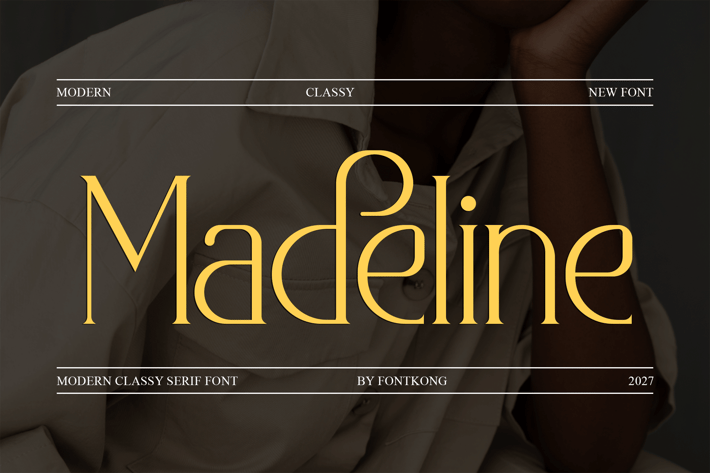
Madeline – A Modern Classy Serif Font
Introducing Madeline, a modern classy serif font crafted to bring elegance and style to any project. With its smooth curves, chic serifs, and balanced letterforms, Madeline is perfect for luxurious branding, editorial spreads, wedding invitations, and more. This typeface seamlessly combines classic charm with a modern edge, making it versatile for both digital and print designs.
Madeline offers a full set of uppercase and lowercase letters, numerals, punctuation, and extensive multilingual support. Its refined style ensures that every design—whether a high-end logo, an elegant book cover, or a sophisticated website—radiates confidence and grace.